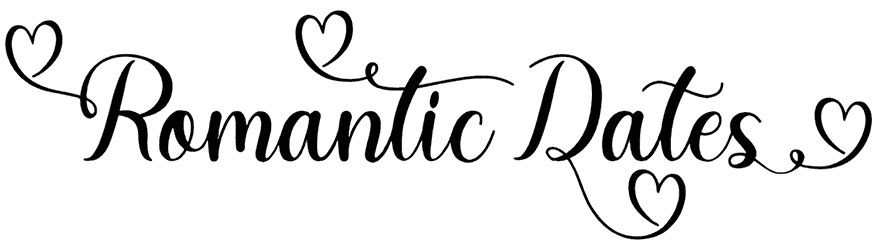
Romantic Dates Font
Romantic Dates is a lovely holiday, Valentine font, that looks adorable and delivers a peaceful feel! The handwritten characters are cute, they give friendly and positive vibes. It’s perfect for one elegant cursive style typography that is fun and has a feminine design.
There isn’t a set of numbers included in the letterforms provided. Romantic Dates is one of the most imaginative romantic fonts you can wish for cards, flyers, invitations, weddings, and fashions.